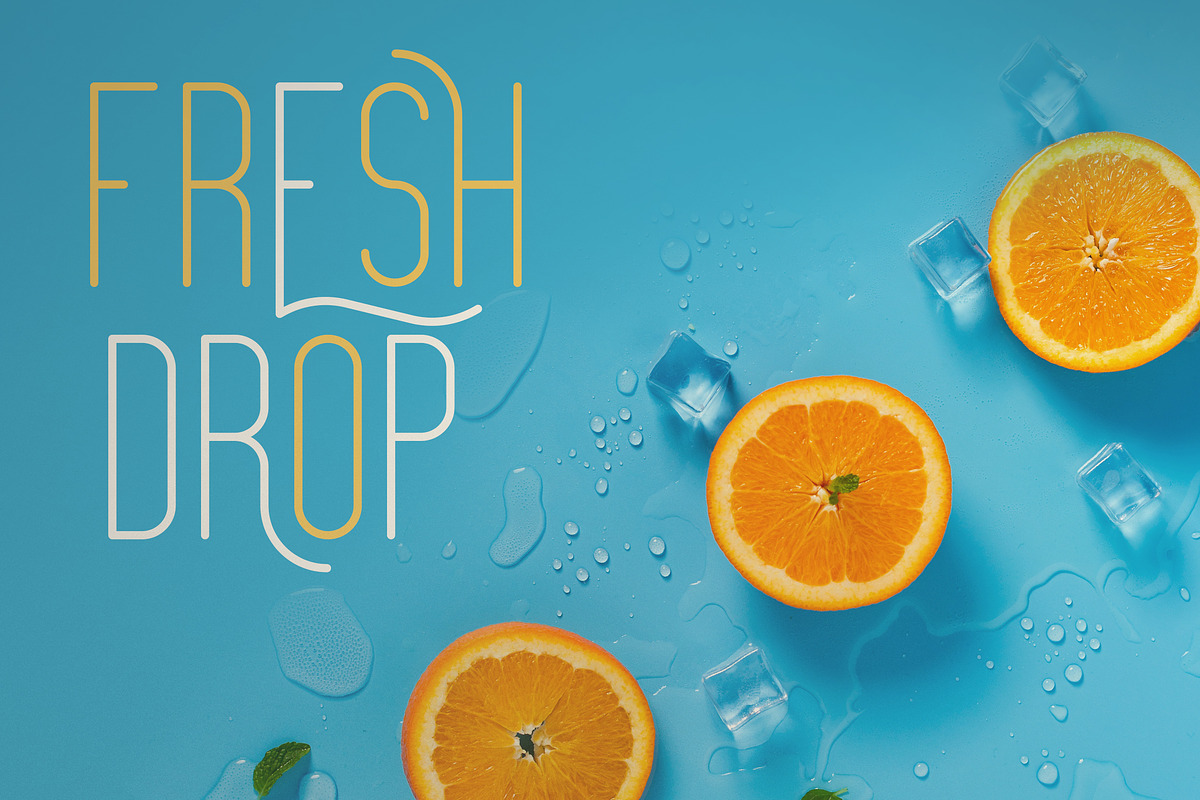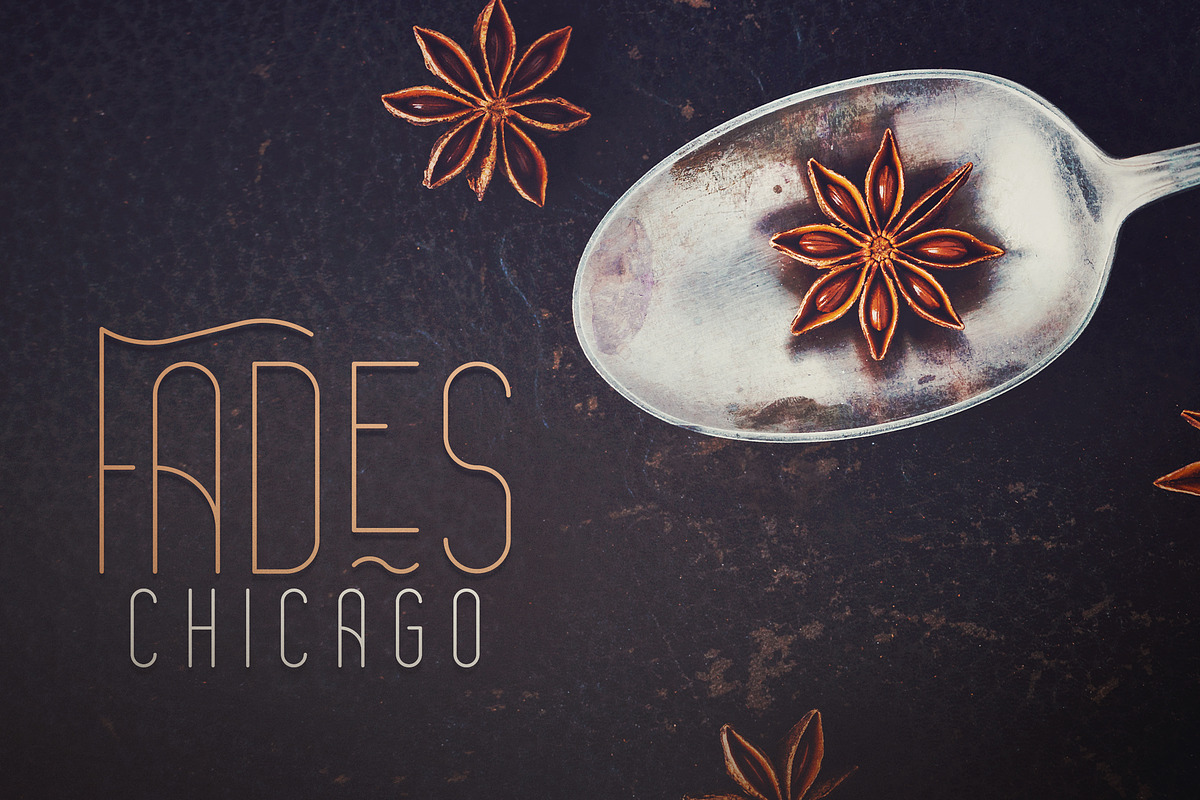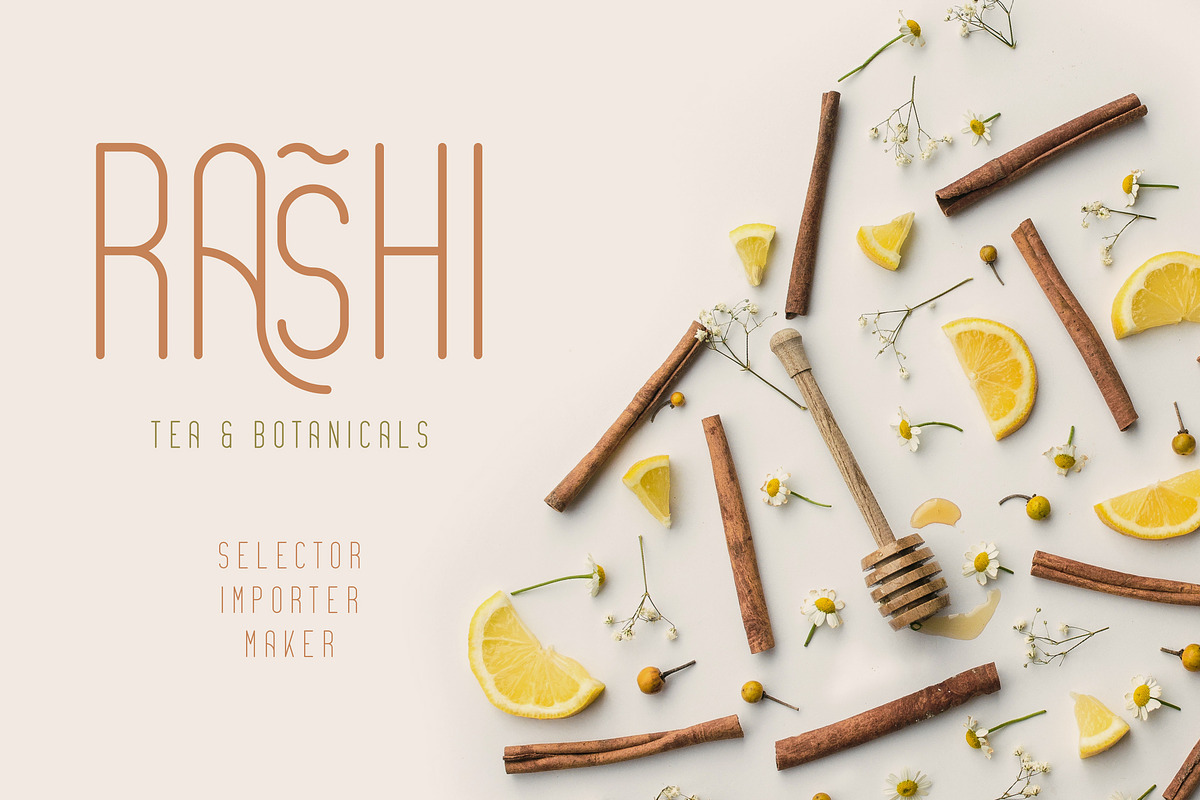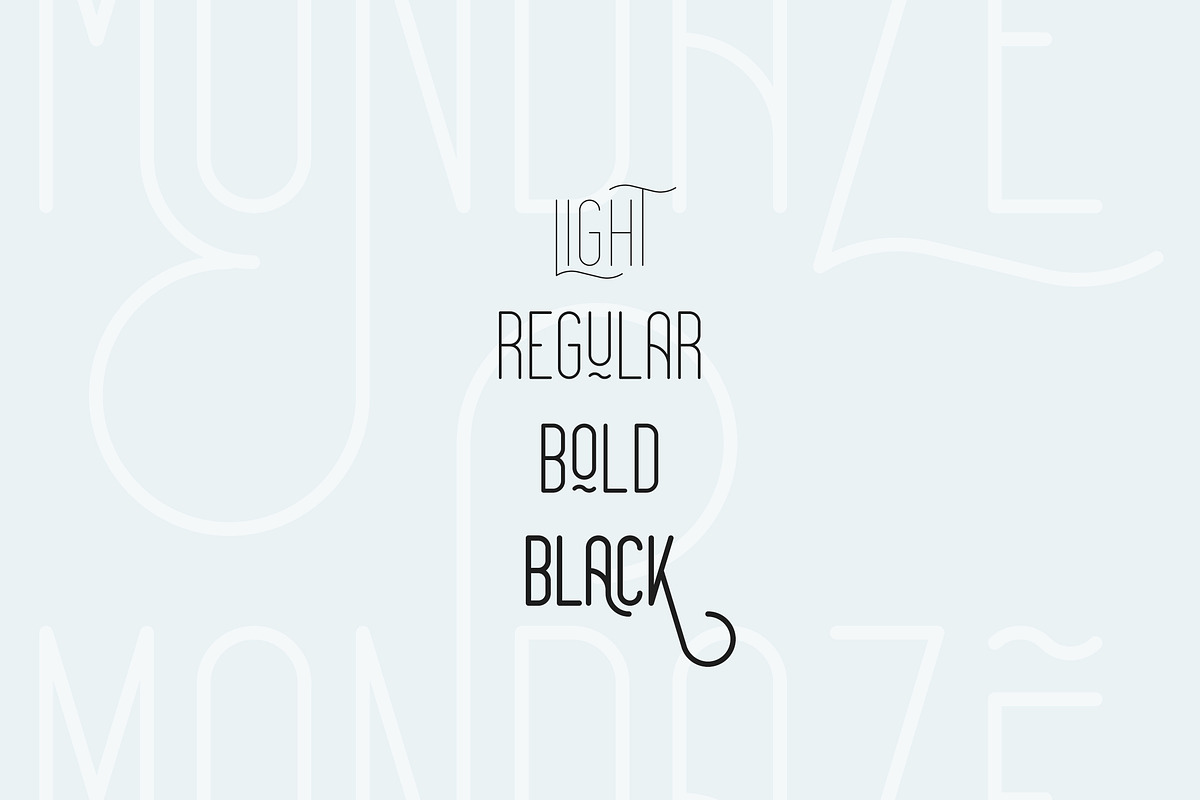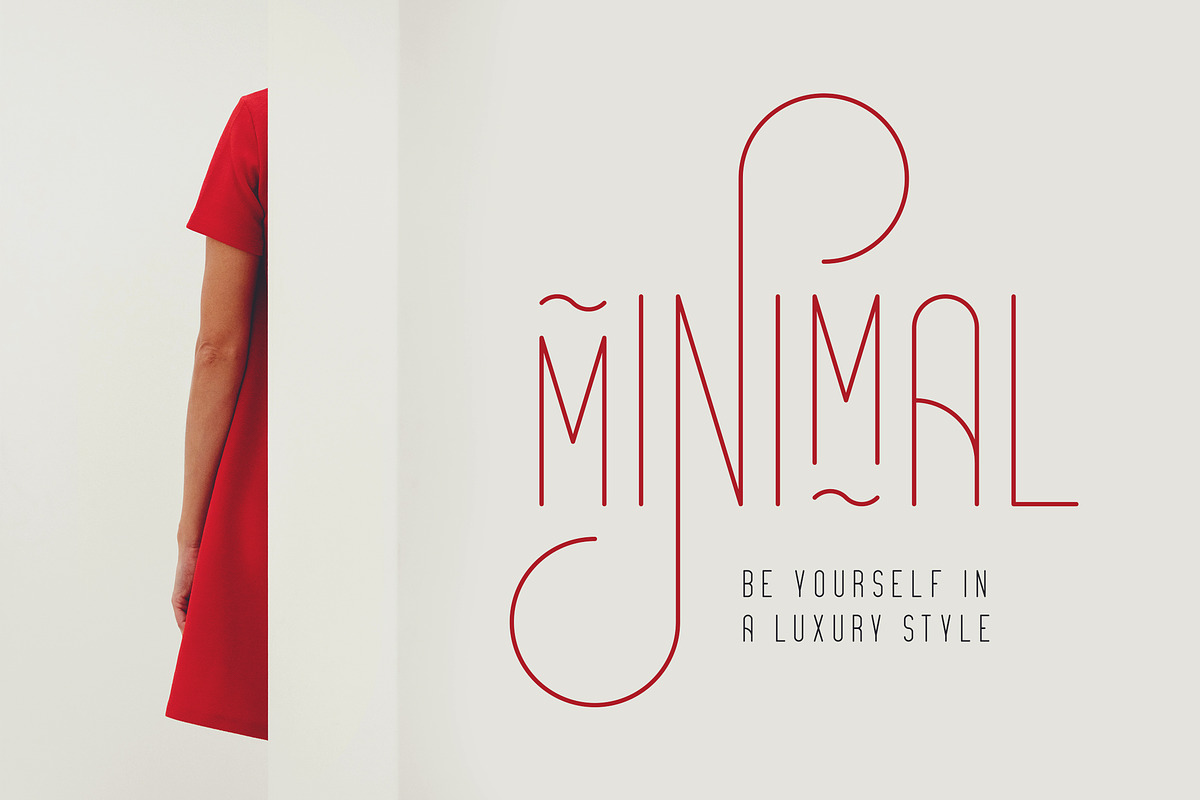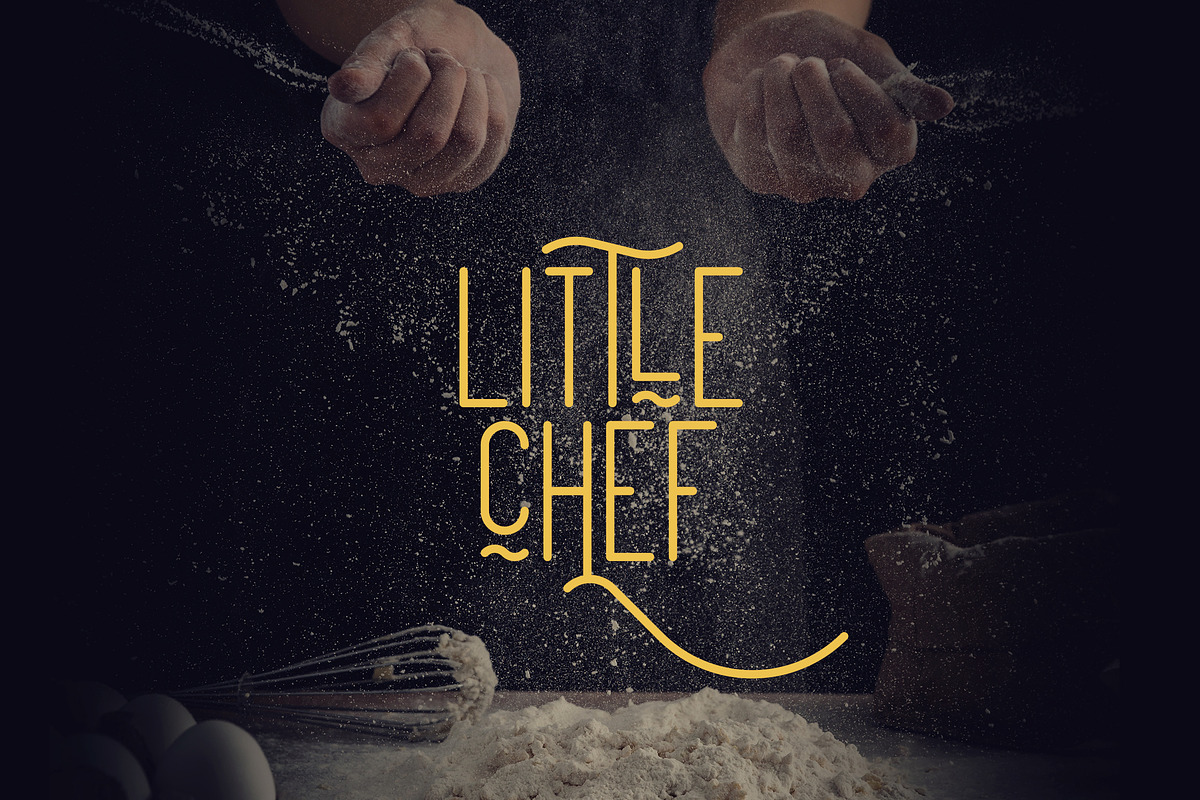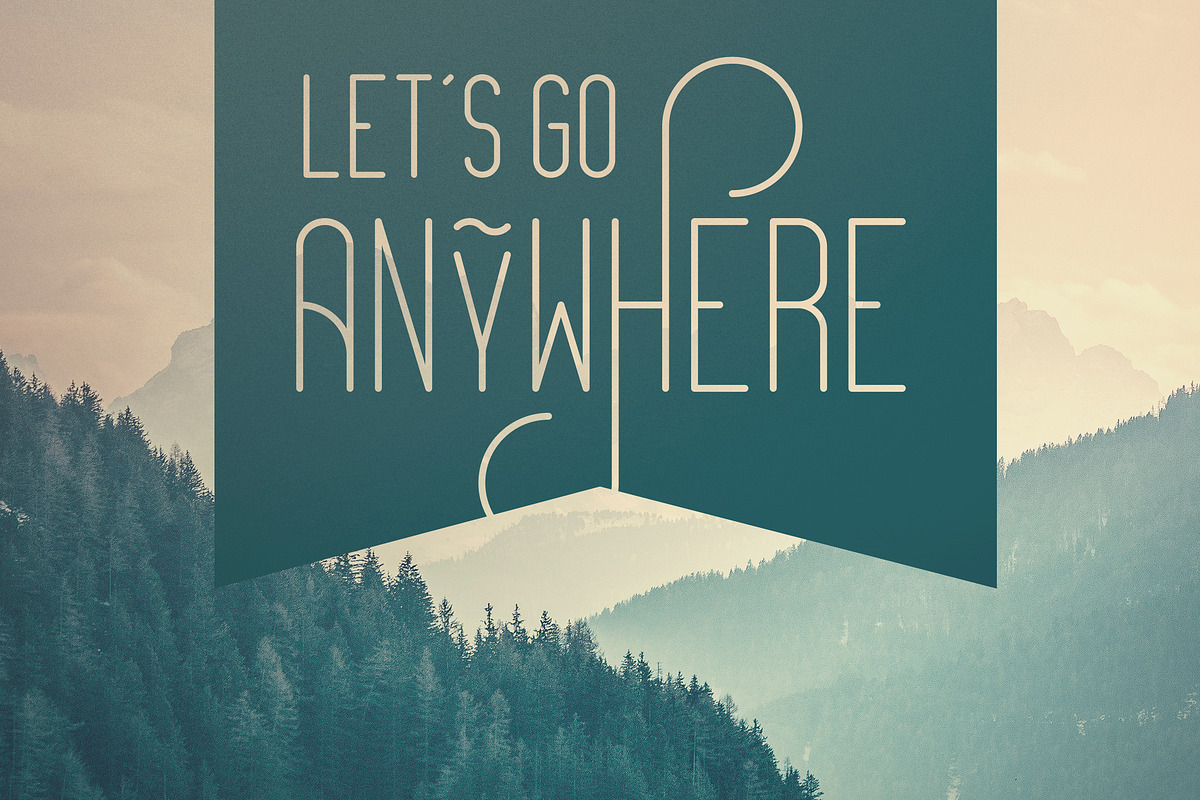
Mondaze Typeface - 4 Weights
Mondaze is clean, rounded typeface with 4 weights, tons of alternative glyphs and multilingual support. It's a very versatile font that works great in large and small sizes.
Mondaze is perfect for branding projects, home-ware designs, product packaging, magazine headers - or simply as a stylish text overlay to any background image.
Uppercase,lowercase, numeral,punctuation & Symbol
Tons of alternative glyphs